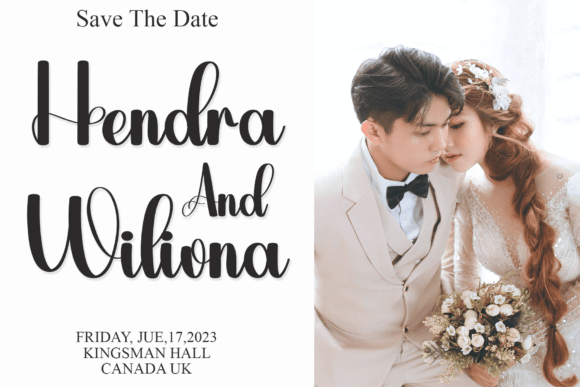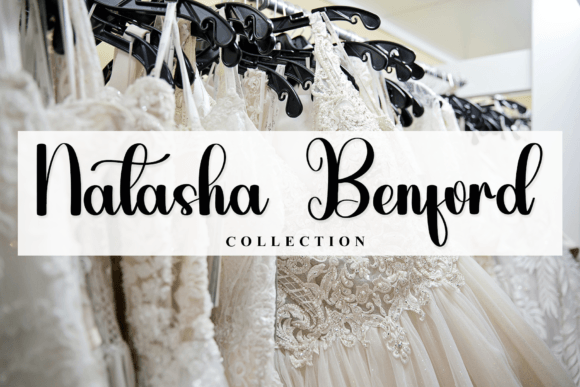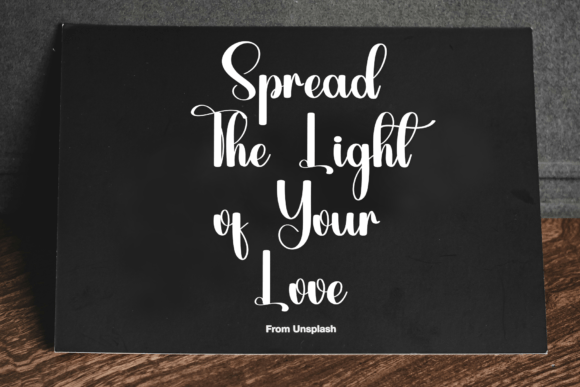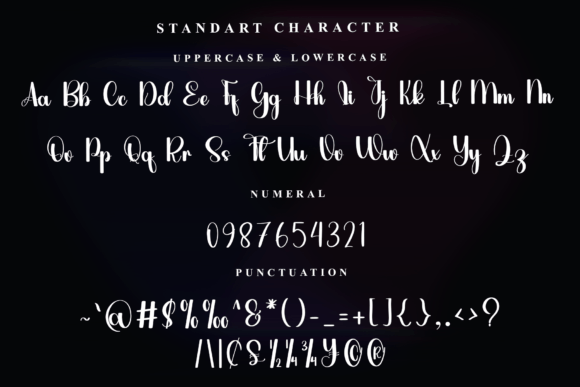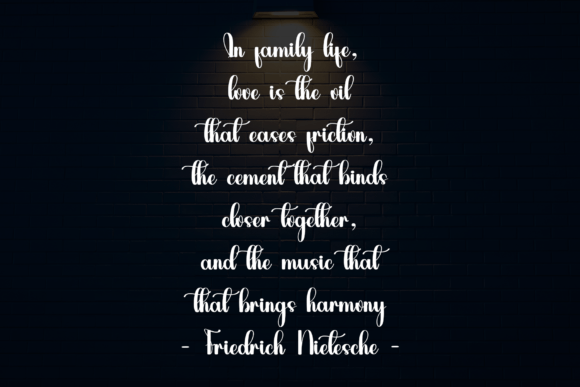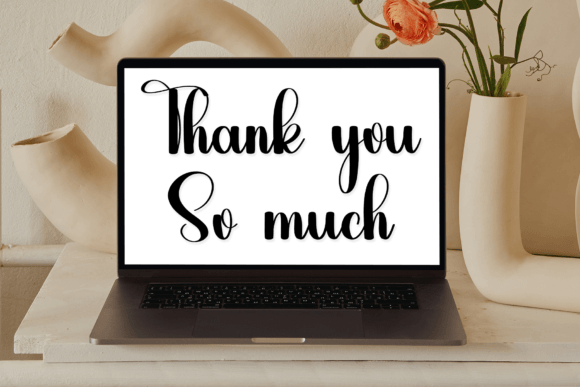
Introducing Balegia Font: The Ultimate Holiday Typeface
Are you looking for a font that embodies the spirit of the holiday season? Look no further than Balegia Font! This festive and happy typeface is designed to bring a touch of charm and nostalgia to your designs, making it perfect for greeting cards, gift labels, and holiday-themed projects.
The Unique Features of Balegia Font
Balegia Font stands out from other typefaces with its decorative elements and unique flair. Its intricate details and playful design make it an ideal choice for adding a cheerful and festive touch to your words. Whether you’re creating holiday greeting cards, gift tags, or festive posters, Balegia Font is sure to impress.
Balegia Font is a versatile typeface that can be used by designers and crafters alike. Its PUA (Private Use Area) coding makes it easy to access all the amazing glyphs and ligatures, allowing you to create stunning designs with ease. With Balegia Font, you can add a personal touch to your holiday projects and make them truly special.
What Makes Balegia Font So Special?
- Festive and Happy Design: Balegia Font is designed to capture the spirit of the holiday season, making it perfect for creating festive and cheerful designs.
- Decorative Elements: The font features intricate details and decorative elements that add a touch of charm to your designs.
- PUA Coded: With PUA coding, you can easily access all the amazing glyphs and ligatures, making it easy to create stunning designs.
- Perfect for Holiday Projects: Balegia Font is ideal for holiday-themed projects, including greeting cards, gift labels, and festive posters.
Tips and Tricks for Getting the Most Out of Balegia Font
- Experiment with Different Sizes and Colors: Try out different sizes and colors to see what works best for your design.
- Combine with Other Fonts: Pair Balegia Font with other fonts to create a unique and eye-catching design.
- Use it for Headings and Titles: Balegia Font is perfect for headings and titles, adding a touch of festivity and cheer to your designs.
Balegia Font is a unique and festive typeface that’s perfect for designers and crafters looking to add a touch of charm and nostalgia to their holiday designs. With its decorative elements, PUA coding, and festive design, it’s the ultimate holiday typeface. So why wait? Download Balegia Font today and start creating stunning holiday designs that will leave a lasting impression!